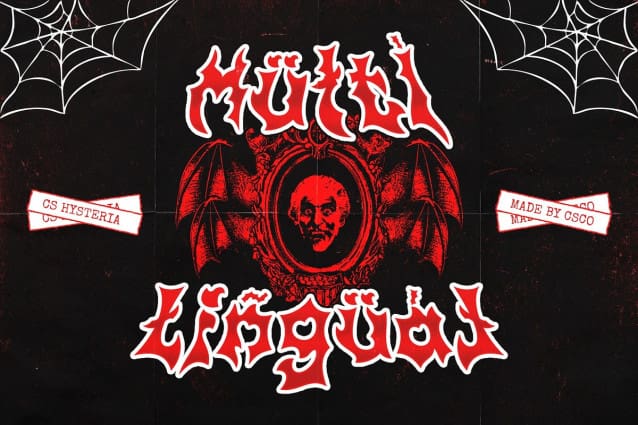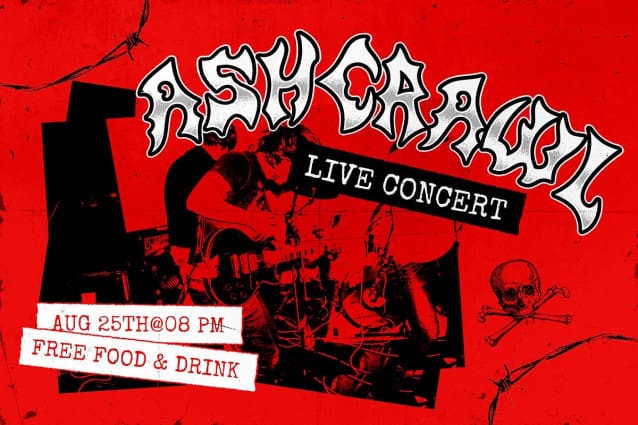
CS Hysteria Font
CS Hysteria is a striking black metal display font, embracing the raw, aggressive energy of black metal music. With sharp, jagged letterforms and fragmented details, it exudes a sense of power and intensity. The design is steeped in the tradition of the black metal genre, featuring bold lines, sharp curves, and intricate ornamentation that create a striking visual tension. This font evokes the darkness and rebellion inherent in the extreme music world, making it perfect for projects that demand an edgy, powerful tone.
Aggressive and Mysterious Design CS Hysteria captures the essence of the underground black metal scene, merging chaos and order through carefully structured fragments and sharp angles. The design incorporates subtle decorative accents, enhancing the aggressive nature of the font while retaining a mysterious and haunting quality. It’s a font that feels alive with energy, making a bold statement in any design.
Perfect for Extreme Music and Beyond Ideal for album covers, band logos, and music festival posters, CS Hysteria is the go-to choice for designs that need to make an unforgettable impact. Whether you’re promoting a dark, rebellious music project or creating visuals for a horror or fantasy theme, this font brings the power, fear, and mystery you need to captivate your audience.